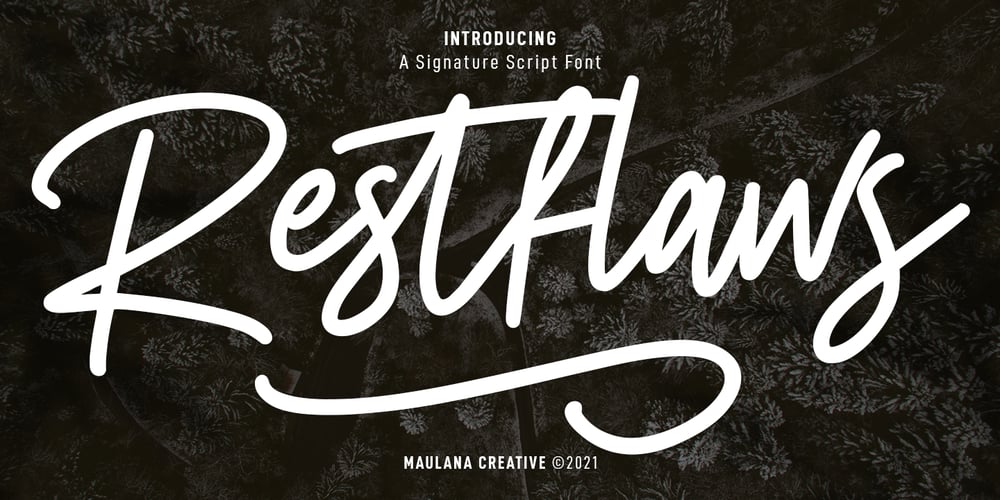
Restflaws Font Family was designed by Gilang Maulana and published by Maulana Creative. Restflaws contains 2 styles and family package options. Restflaws is a casual script font. With medium mono-line stroke, fun character with a bit of ligatures and alternate characters. To give you an extra creative work. Restflaws font support multilingual more than 100+ language. This font is good for logo design, Social media, Movie Titles, Books Titles, a short text even a long text letter and good for your secondary text font with sans or serif. Make a stunning work with Restflaws font. Cheers, MaulanaCreative